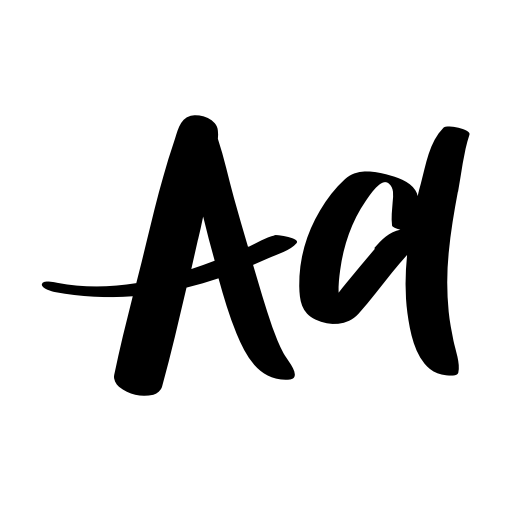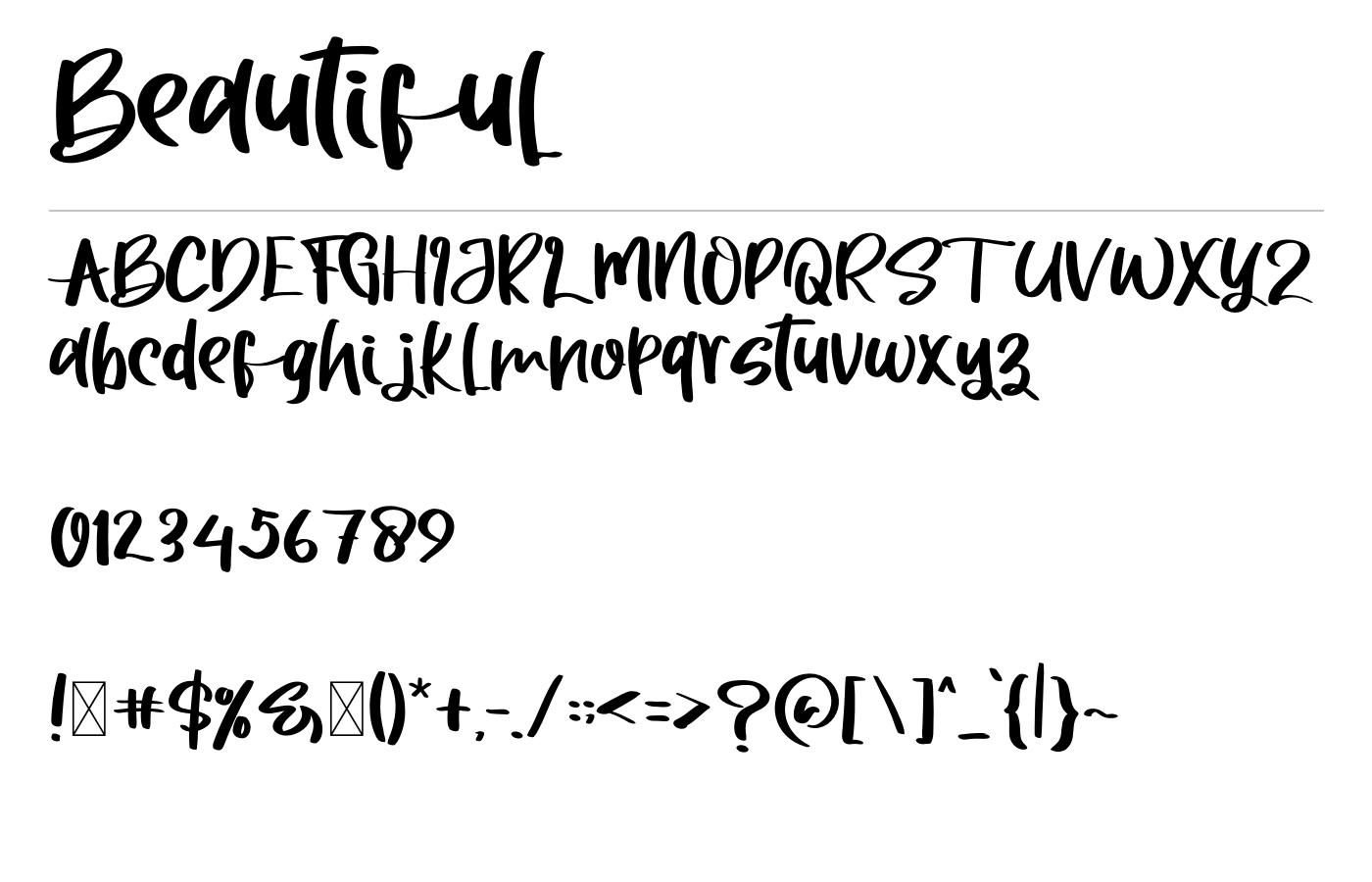
Beautiful Font is a lively, handwritten script font with a casual and playful style. Its bold, slightly irregular strokes and spirited letterforms bring a friendly, personal touch, making it ideal for creative projects, branding, and invitations where warmth and individuality are key. This font works well in eye-catching headlines or expressive logo designs that want to convey approachability and charm.
Beautiful Font
About Beautiful Font